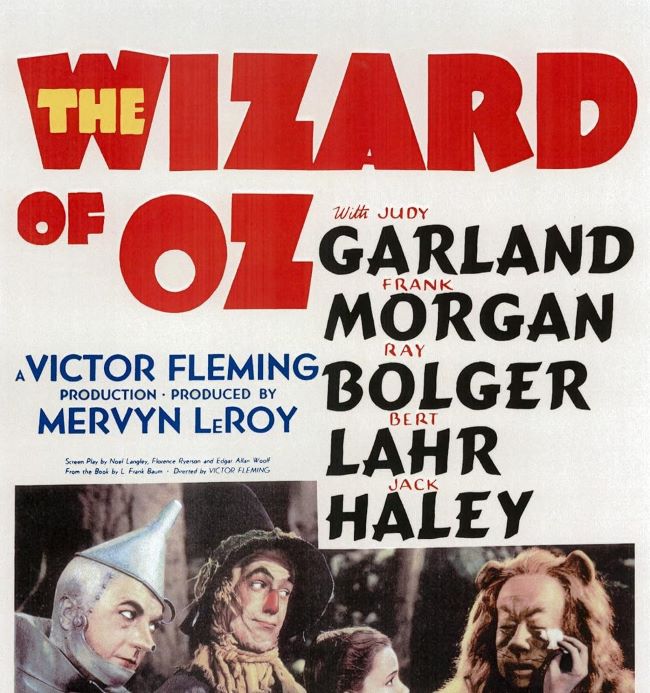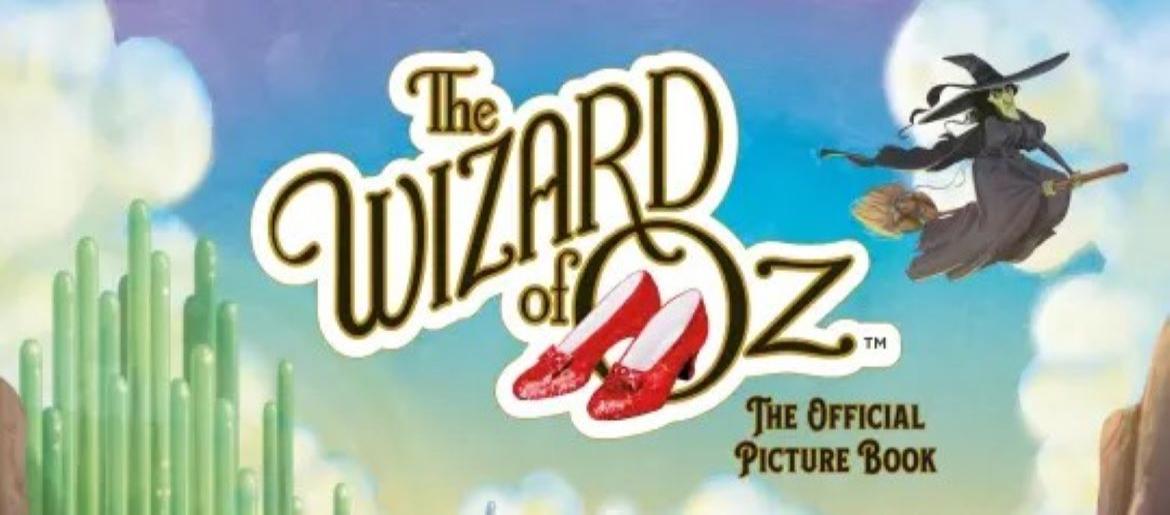
The Wizard of Oz Font captures the whimsical, enchanting magic of one of cinema’s most beloved classics. Its bold, playful letterforms reflect the sense of adventure and fantasy central to Dorothy’s journey from Kansas to the vibrant land of Oz. With slightly theatrical curves and vintage-inspired styling, the typography evokes charm, nostalgia, and timeless storytelling. Fonts similar in feel include ITC Cheltenham, Bookman Old Style, or decorative retro display typefaces, all capable of bringing that magical, storybook quality to life. Free alternatives can replicate the same cheerful, imaginative aesthetic, perfect for posters, book covers, or fantasy-themed projects.
The Wizard Of Oz Font (book)
The Wizard Of Oz Font (movie)
About The Wizard of Oz
Released in 1939, *The Wizard of Oz* is an American musical fantasy directed by Victor Fleming and starring Judy Garland, Frank Morgan, and Ray Bolger. The film follows Dorothy as she is transported to the magical land of Oz, meeting unforgettable characters along the way. Celebrated for its iconic songs, imaginative storytelling, and vibrant visuals, the movie remains a timeless classic, enchanting generations with its themes of courage, friendship, and the magic of imagination.